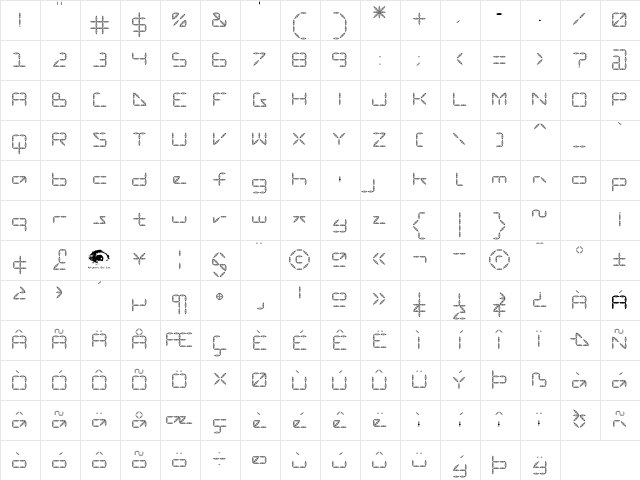
Vanguard III AOE Regular
Complete Vanguard III AOE Regular glyph index. Displaying only characters natively supported by Vanguard III AOE Regular font.
Design Context for Vanguard III AOE
Vanguard III AOE is a composed and adaptable typeface that performs quietly and consistently across a wide range of design contexts.